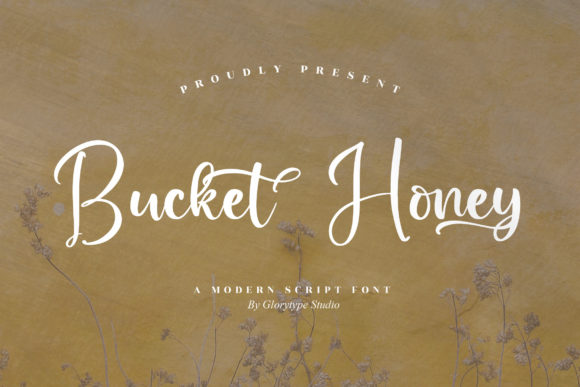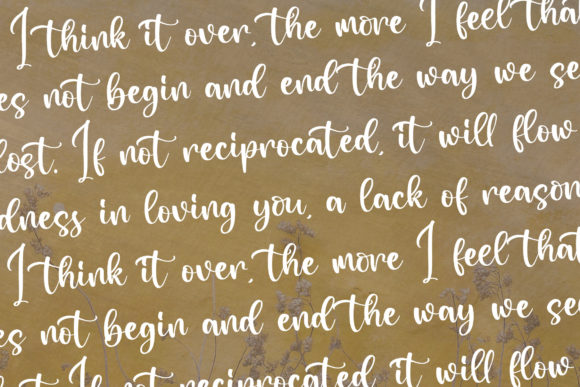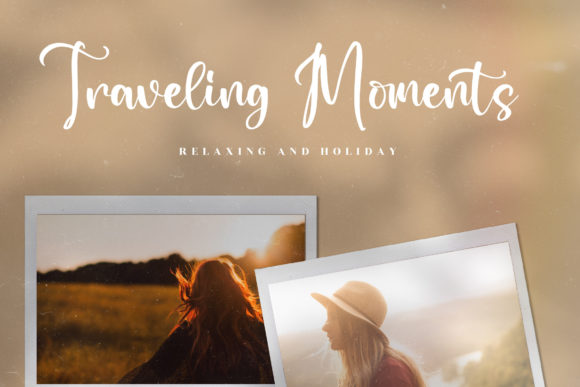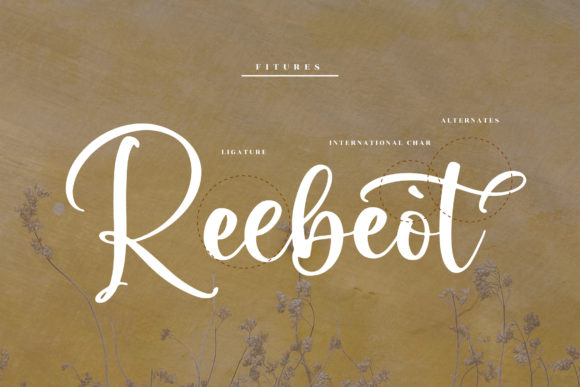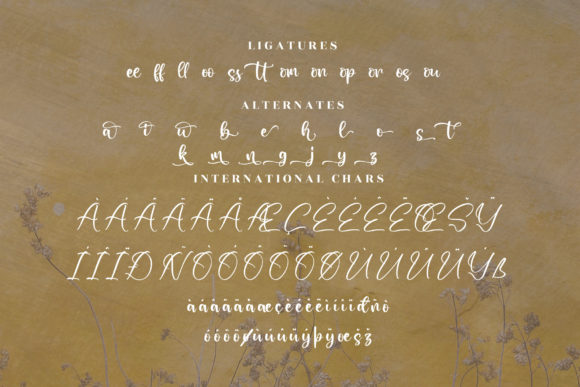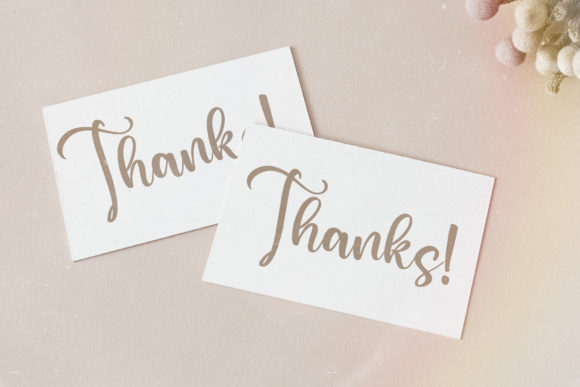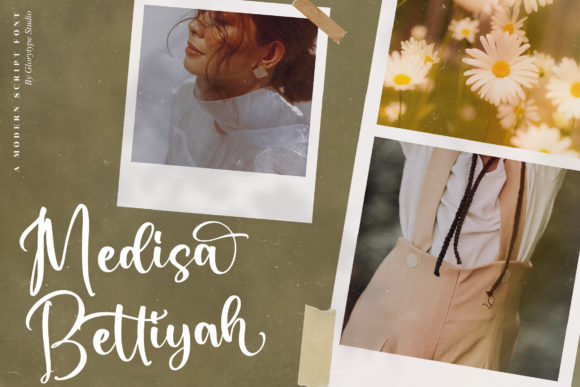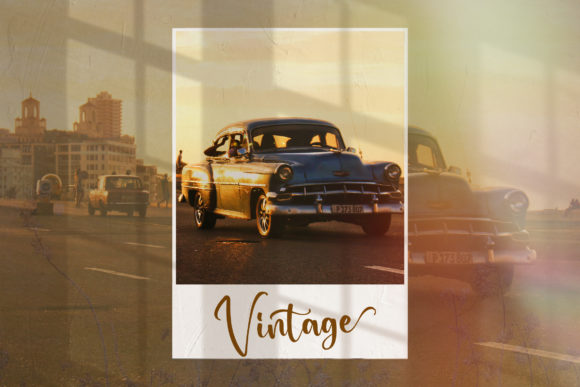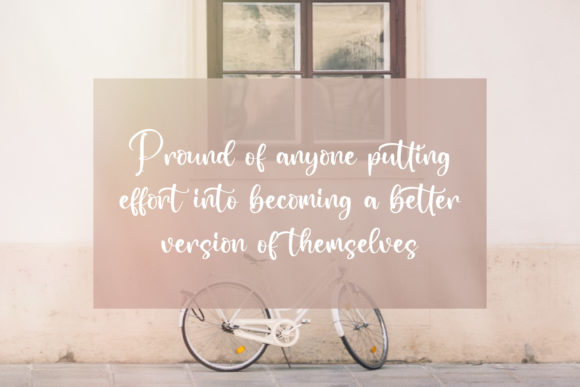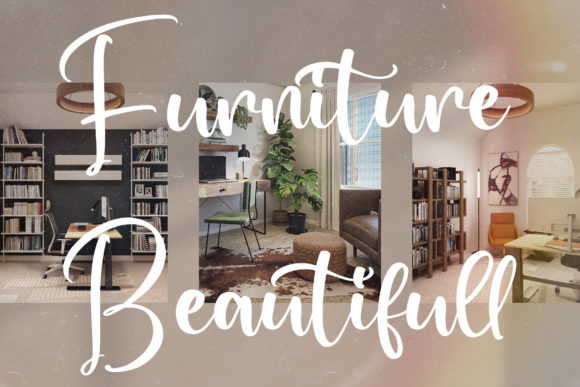
Bucket Honey Font
About Bucket Honey Font
Bucket Honey is a trendy and chic script font. This font is PUA encoded which means you can access all of the glyphs and swashes with ease! Add it confidently to your projects, and you will love the results.